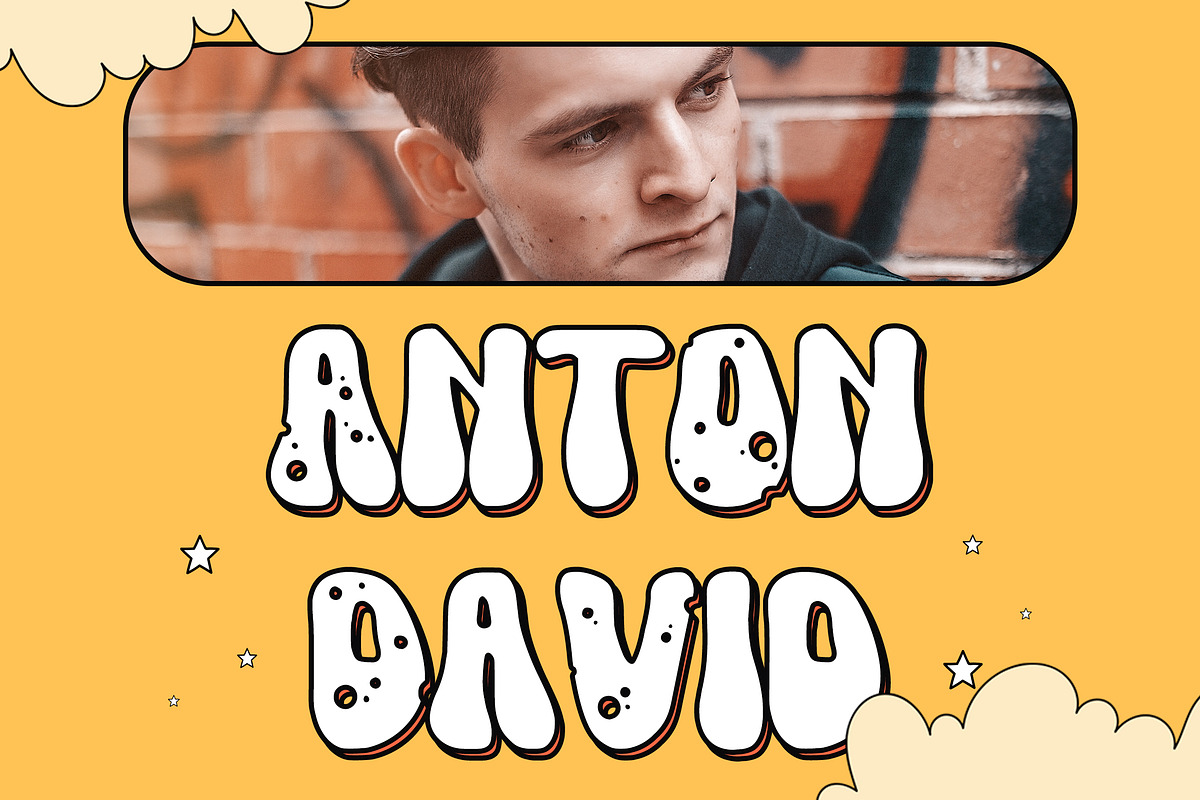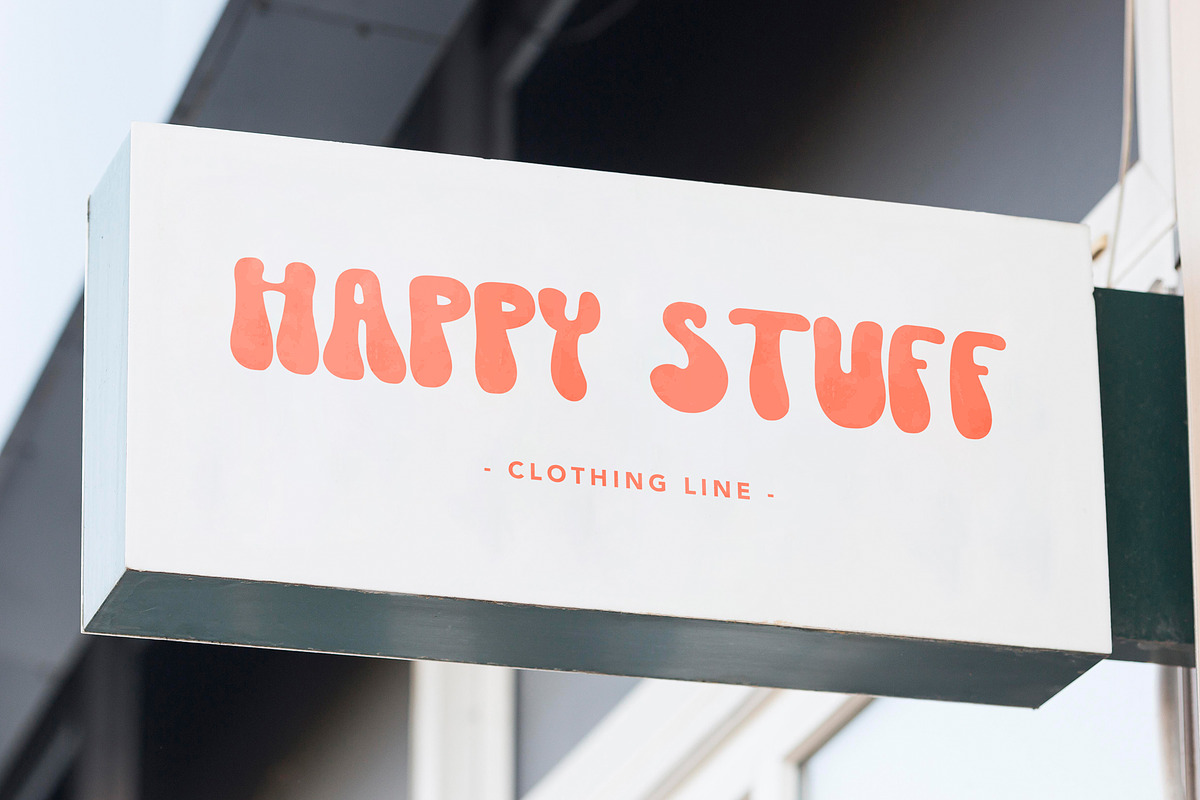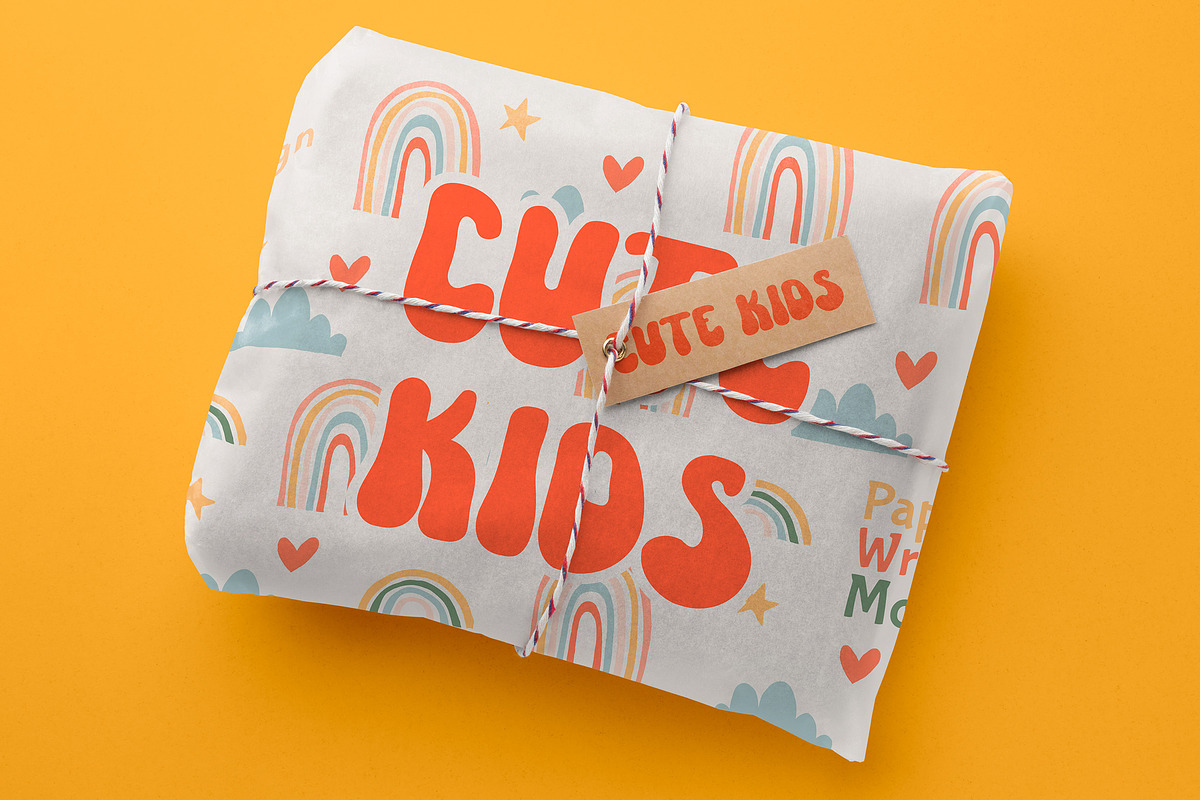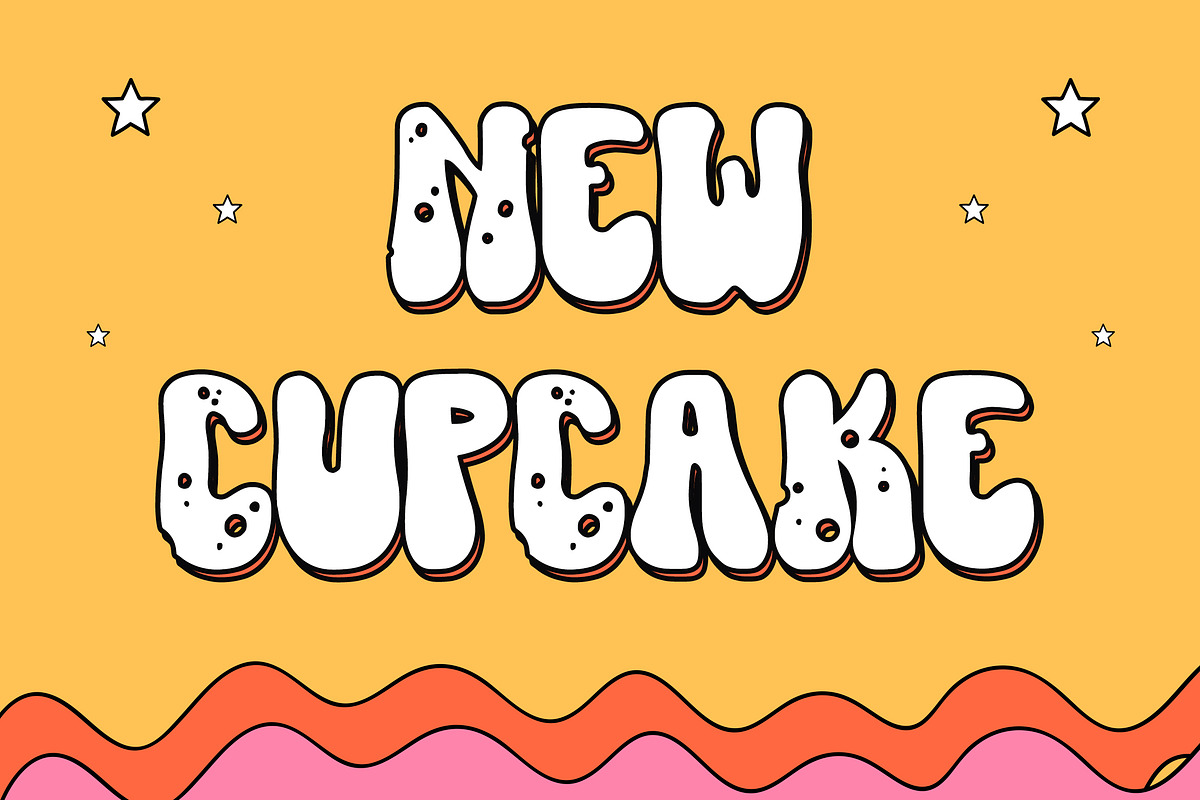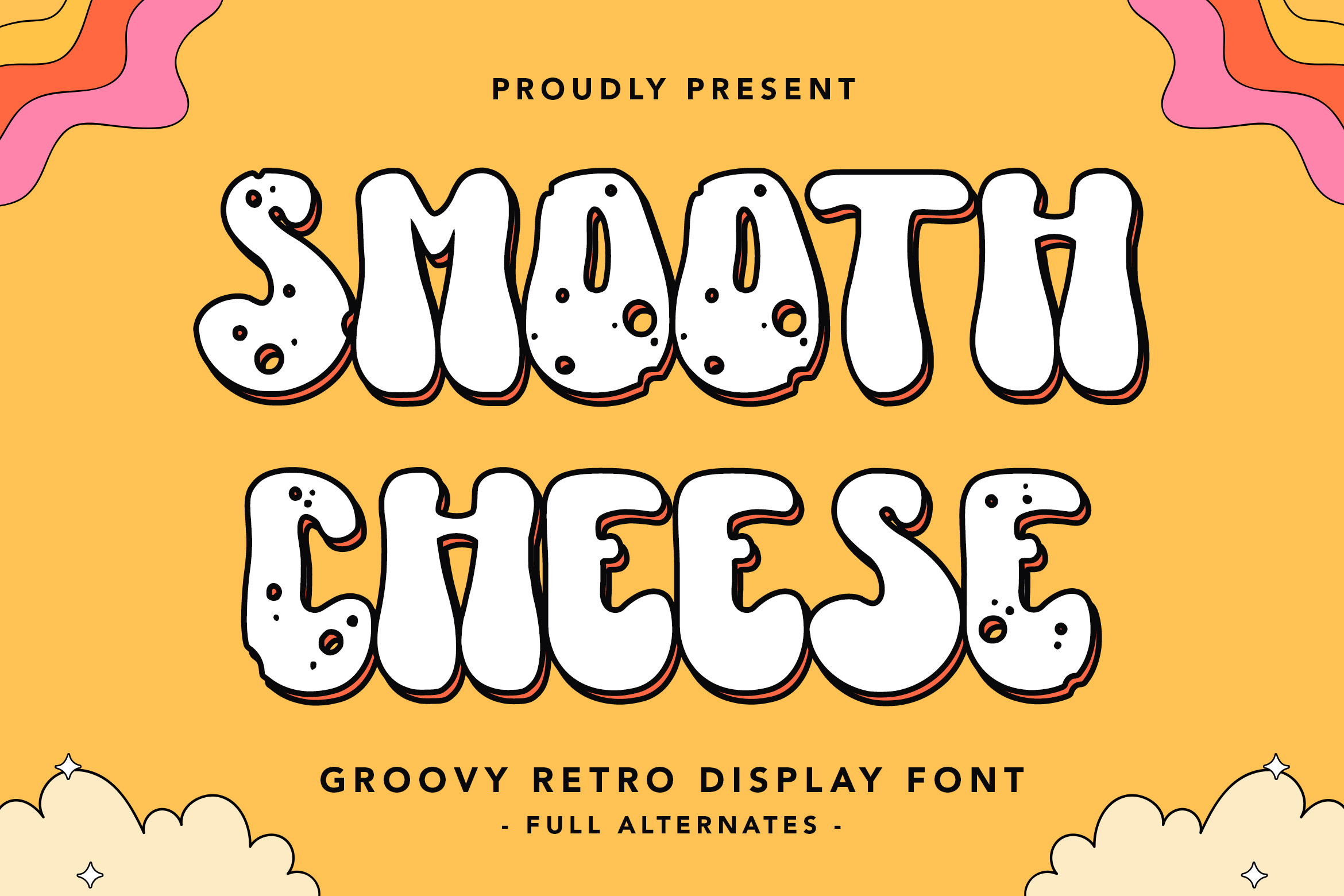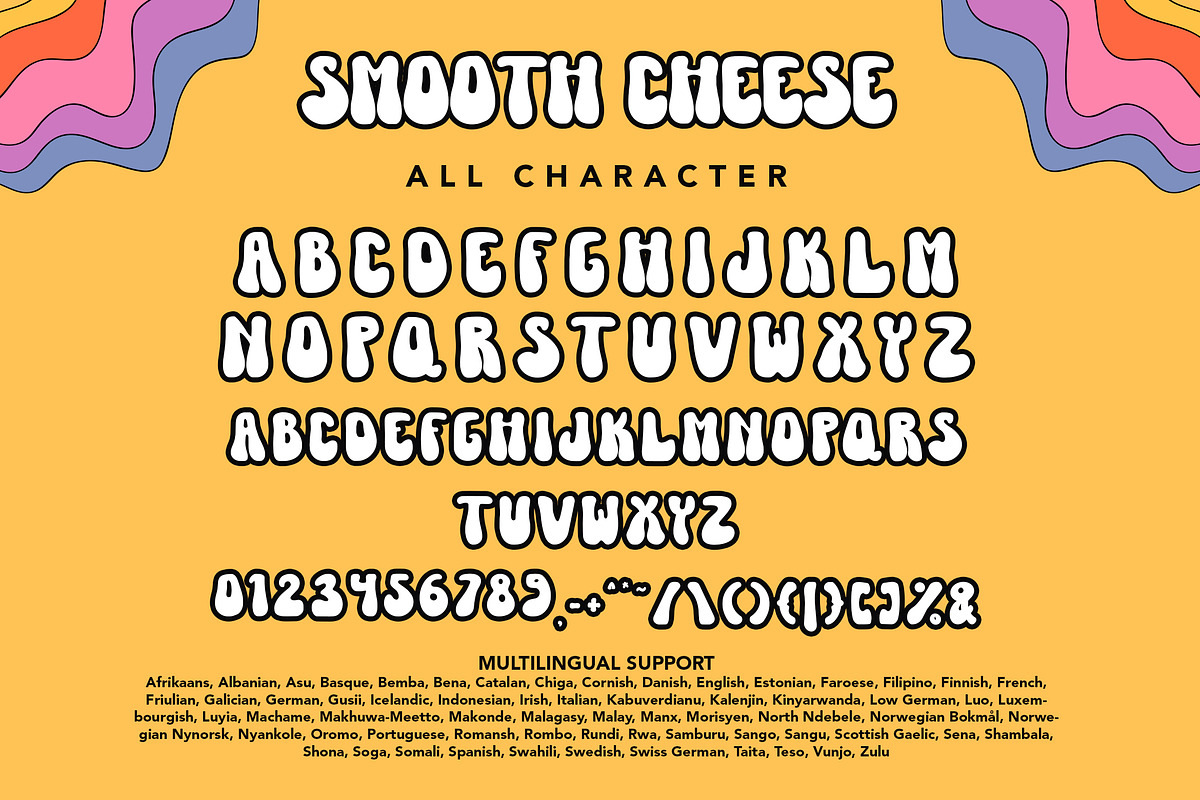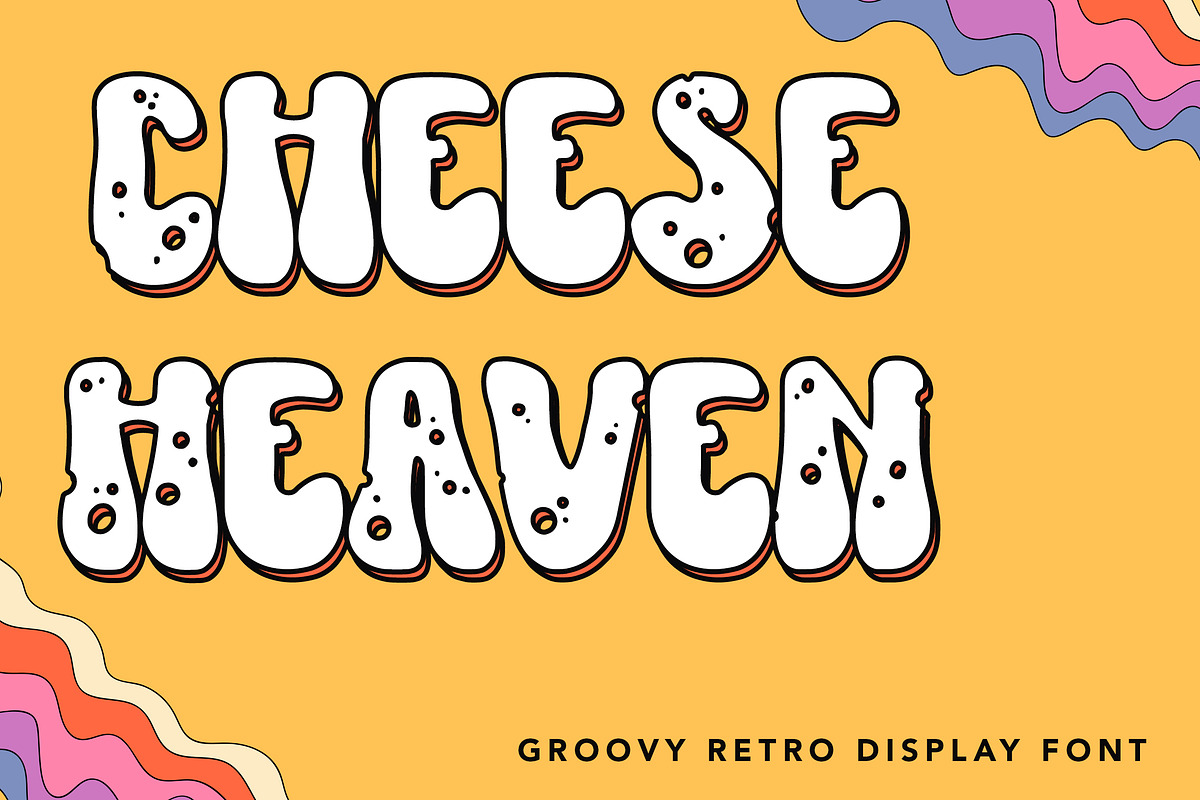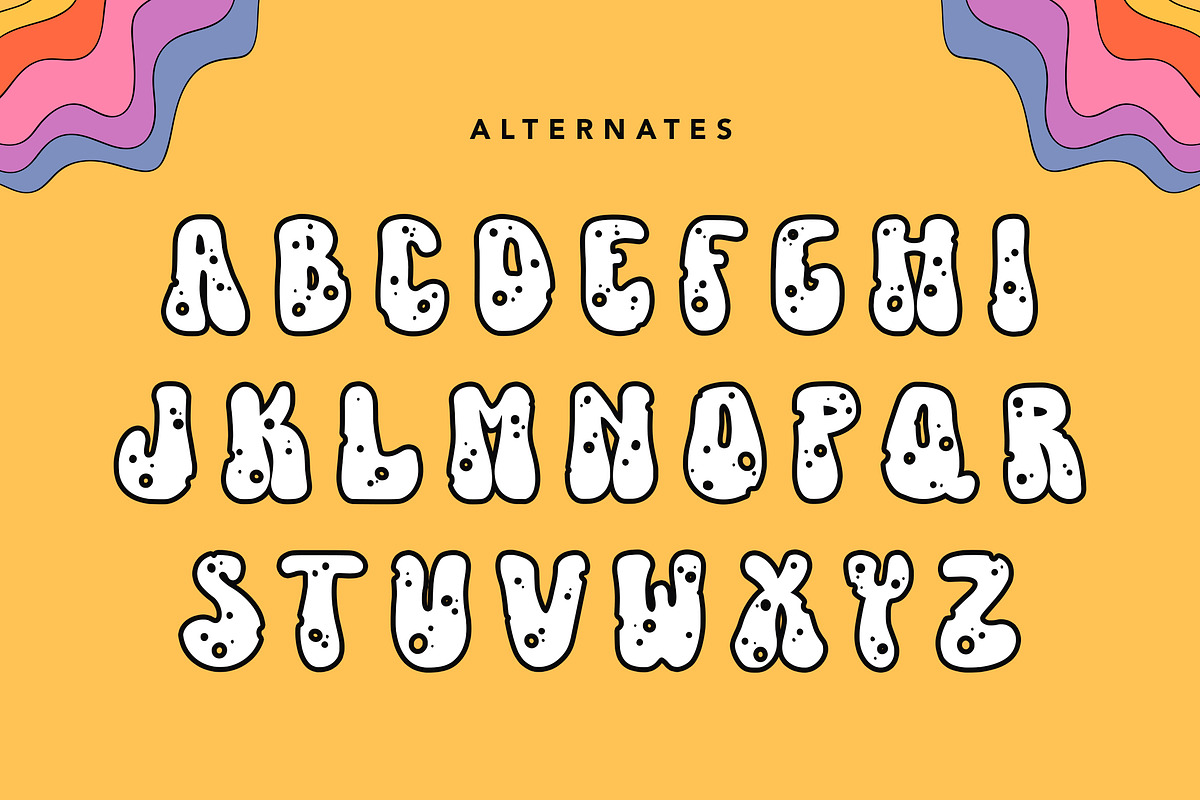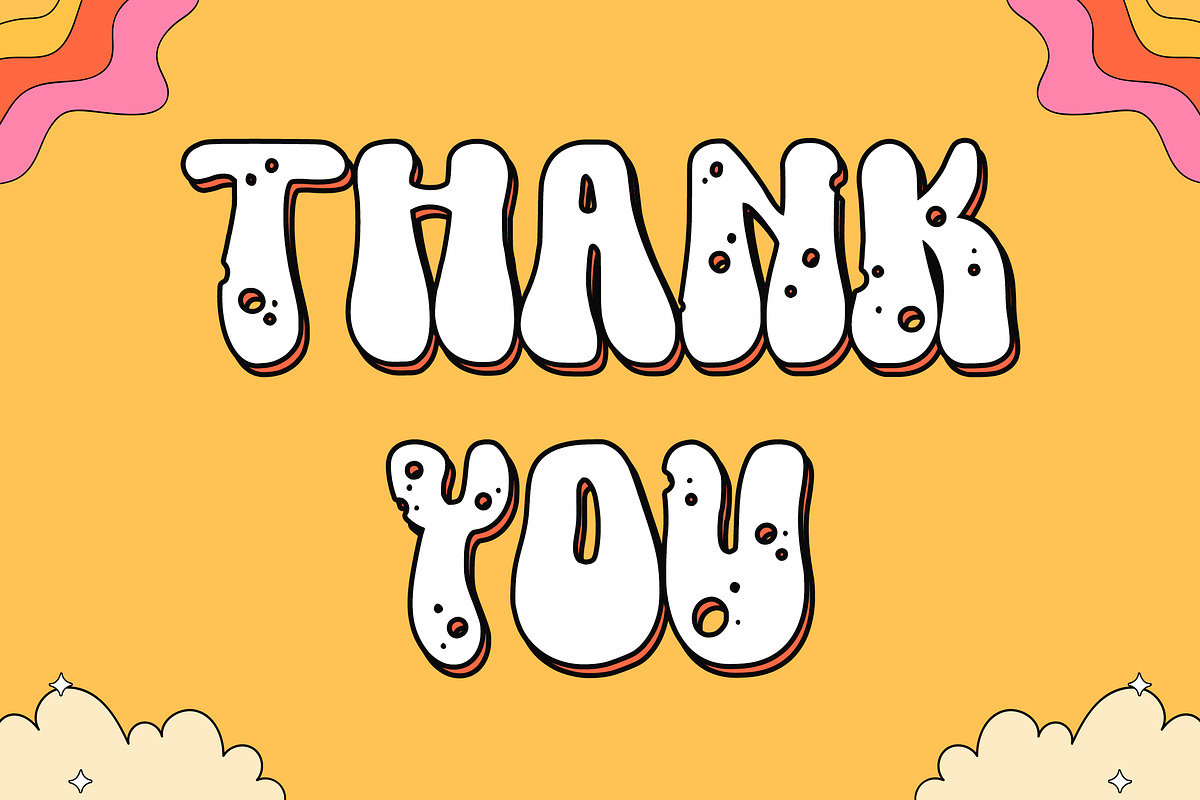
Smooth Cheese - Groovy Retro Font
Smooth Cheese - Groovy Retro Display Font is a font with distinctive handwritten characters perfect for branding projects, logos, wedding designs, media posts, advertisements, product packaging, product designs, labels, photography, watermarks, invitations, stationery, and any project who need handwritten dishes.
Features : • Character Set A-Z • Numerals & Punctuations (OpenType Standard) • Accents (Multilingual characters) • Ligature